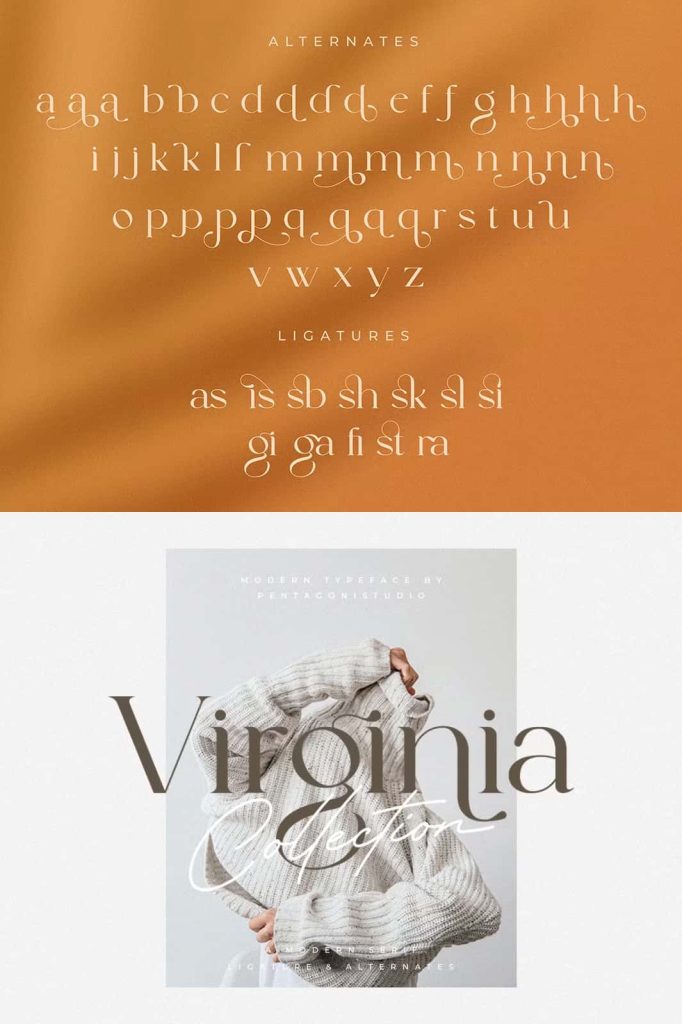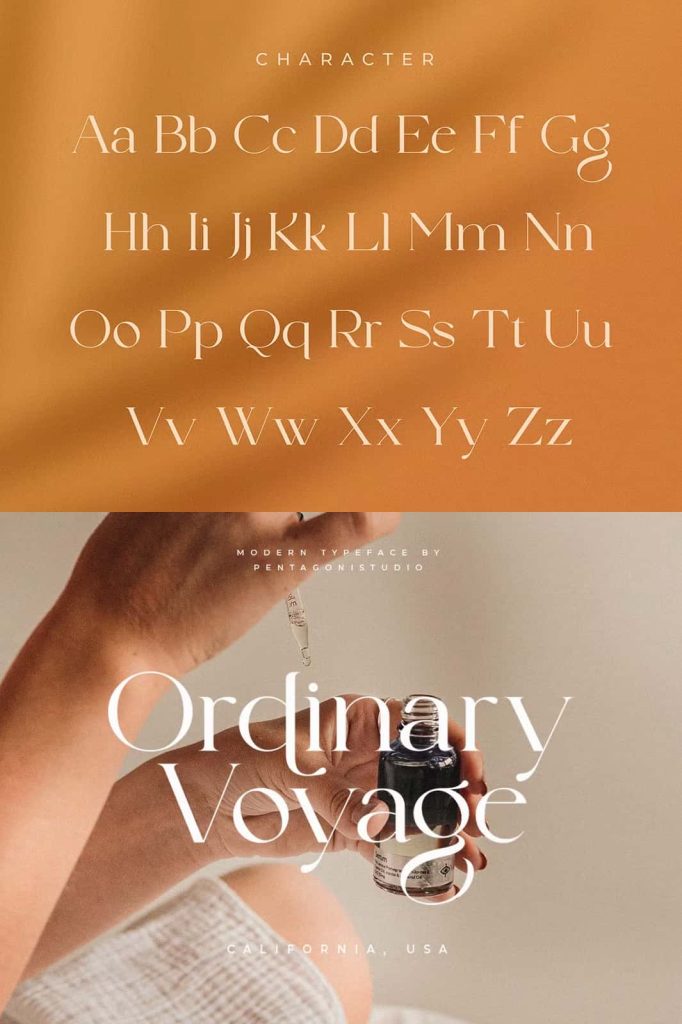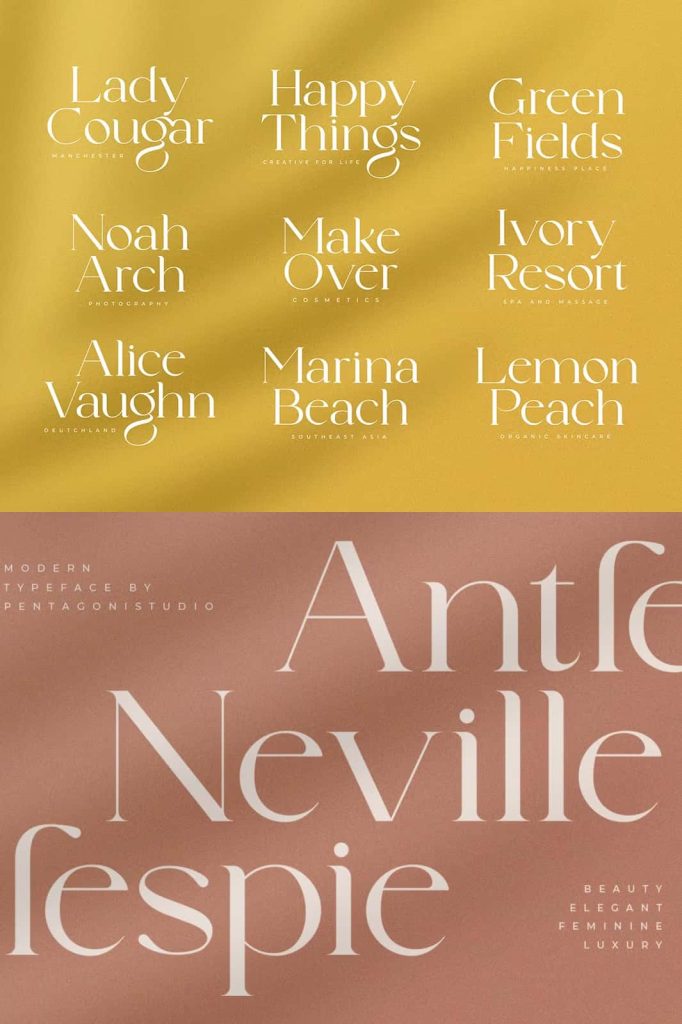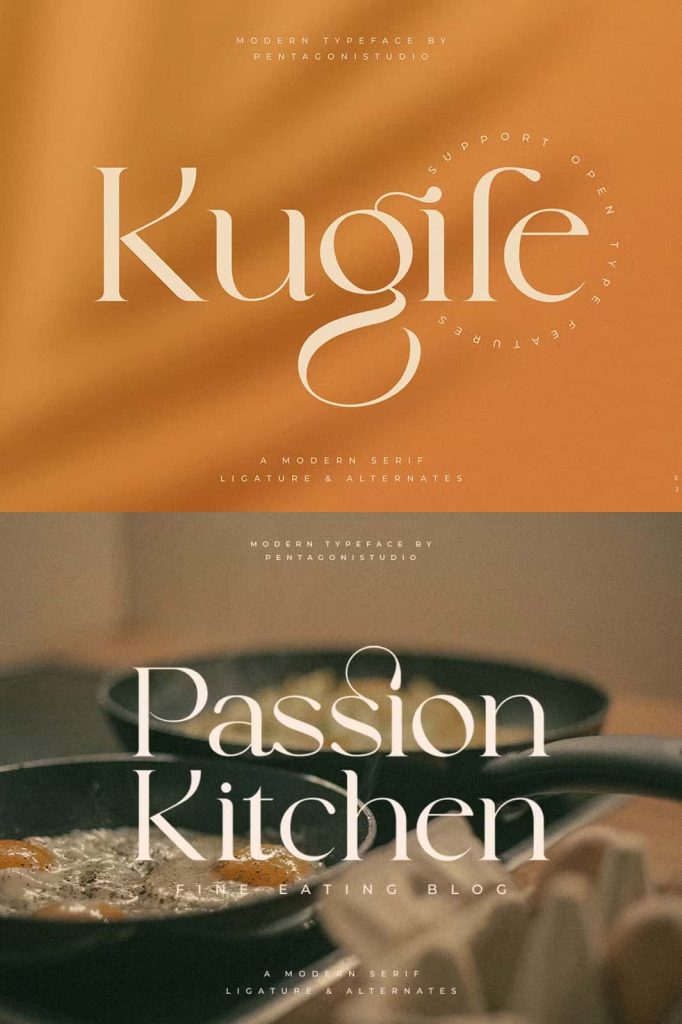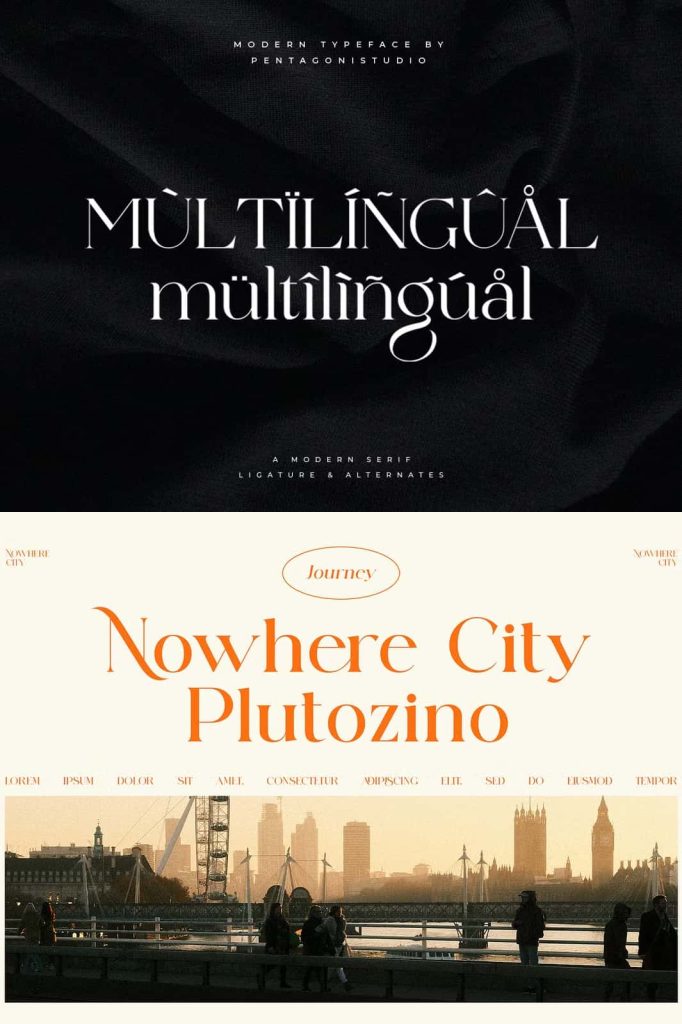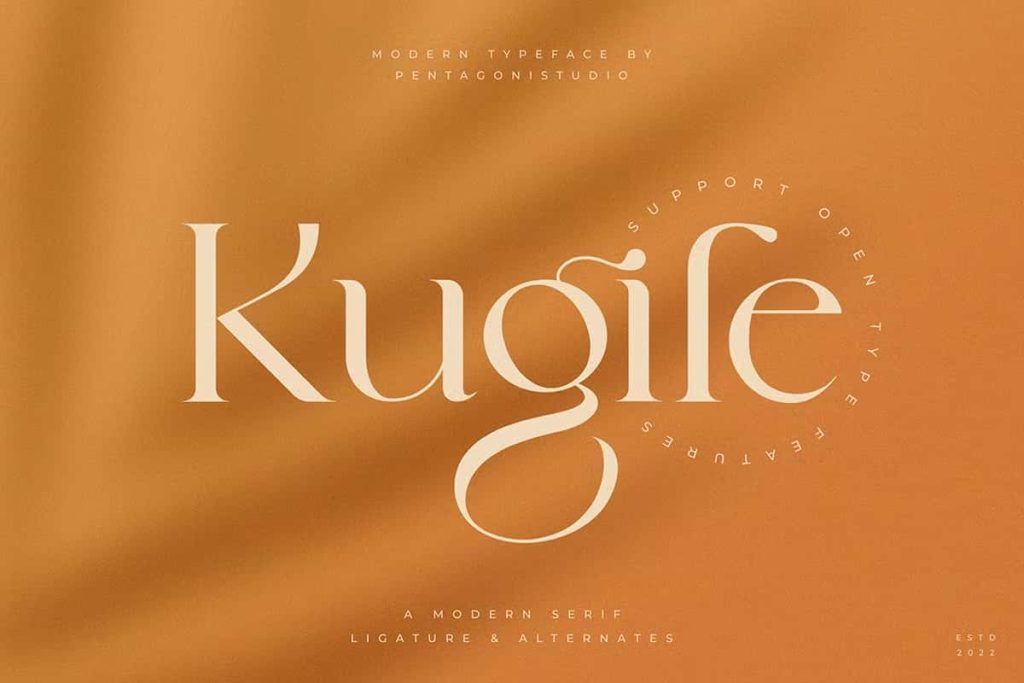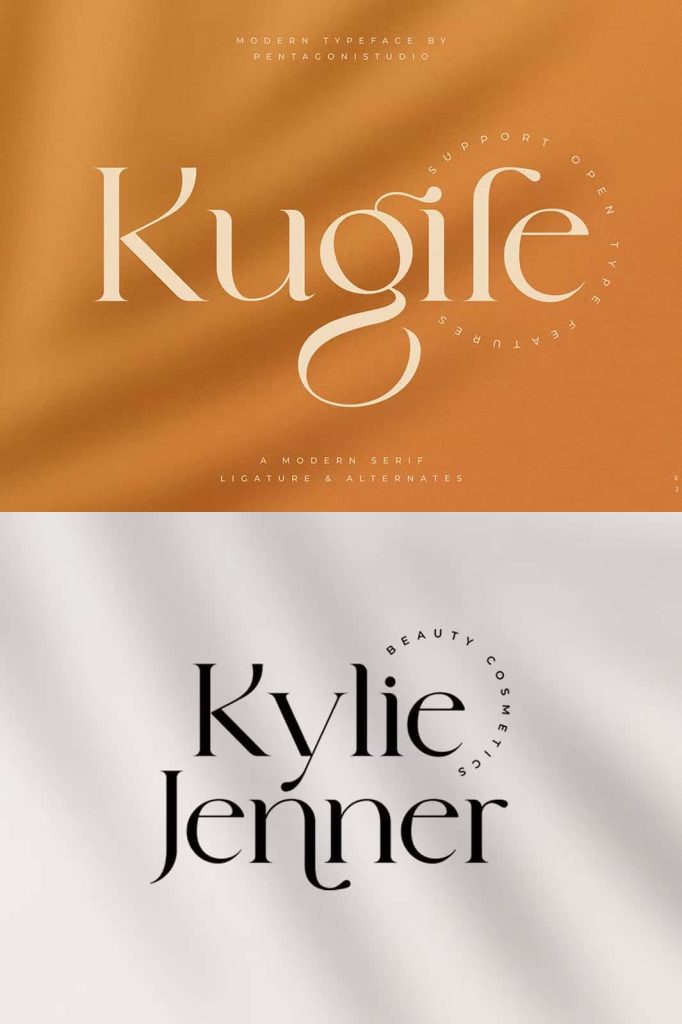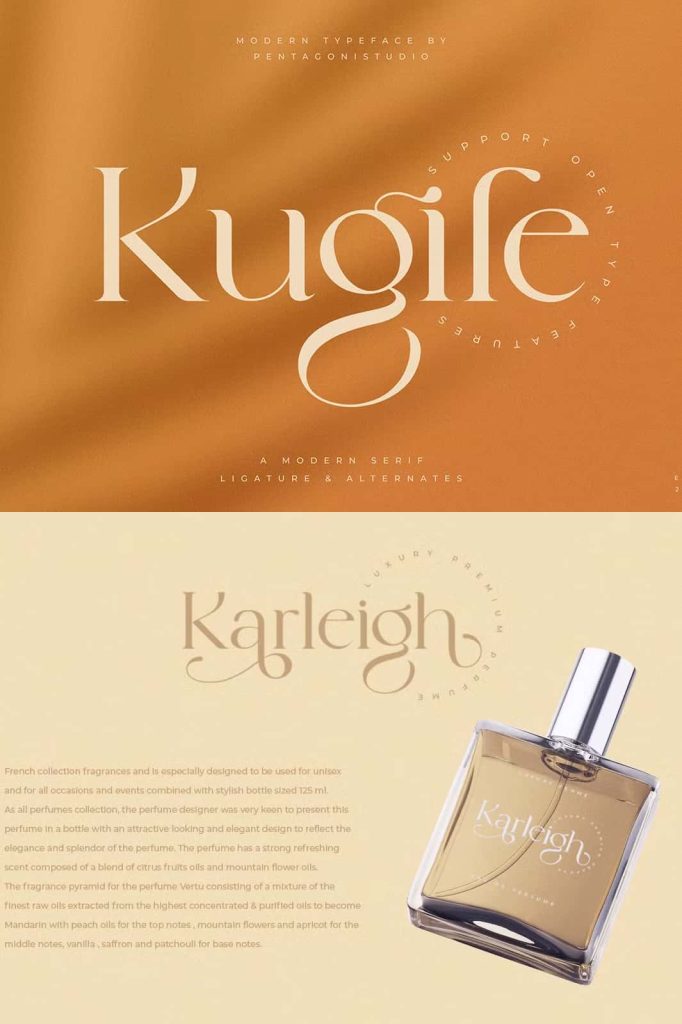
Kugile Classy Serif Font
Kugile is a classy serif font inspired by luxury, elegance, and refined visual character. Designed for creative projects that demand sophistication without sacrificing personality, Kugile brings a polished and timeless quality to typography. Its elegant serif construction creates a graceful appearance that can instantly elevate logos, headlines, packaging, editorial layouts, invitations, fashion graphics, and premium branding.
With its sophisticated character, Kugile provides designers with a versatile typographic foundation for creating memorable visual identities. The font can communicate luxury through a clean and refined composition, or it can create a more expressive appearance when paired with photography, decorative elements, textures, and carefully selected colors. Its classic influence keeps the design timeless, while its contemporary presentation allows it to work comfortably in modern creative environments.
A Refined Serif Inspired by Luxury
Kugile draws inspiration from the visual language of luxury design. Elegant serif typography has long played an important role in fashion, beauty, editorial publishing, premium packaging, and sophisticated branding. Kugile captures this tradition while providing a versatile style for today’s designers.
The serif details give each letter a polished appearance and help create a sense of refinement. When used in large headlines or brand names, the typeface can become a strong visual statement. Its elegant structure also works beautifully in more restrained layouts where typography takes center stage.
Classy Character for Modern Design
Kugile balances classic sophistication with a contemporary design sensibility. Rather than creating an overly traditional appearance, the typeface gives elegant typography a modern context. This makes it suitable for brands and creatives that want to communicate quality, confidence, and timeless style.
Use Kugile in minimalist layouts to create a clean luxury aesthetic. Alternatively, combine it with rich textures, editorial photography, fine lines, subtle ornaments, or sophisticated compositions to create a more elaborate visual identity.
Make Typography the Focal Point
Kugile has enough character to work as the primary visual element in a design. Use it for large headlines, brand names, campaign titles, product names, or short statements. Allow generous spacing around the lettering so the refined serif details can remain visible and create an elegant sense of balance.
A minimalist approach often works particularly well with classy serif typography. Instead of adding numerous decorative elements, let the letterforms communicate the personality of the project. This approach can produce a premium appearance while keeping the overall composition clean.
Perfect for Luxury Branding
Kugile can help businesses establish a sophisticated and memorable brand identity. Its classy serif character works especially well for fashion labels, beauty brands, jewelry companies, lifestyle businesses, creative studios, photography services, boutique retailers, and premium products.
Use the font for logos, wordmarks, brand names, slogans, packaging, websites, social media graphics, advertisements, and printed materials. A carefully designed Kugile wordmark can create a strong first impression and give a brand a sense of refinement.
Create Elegant Logos and Wordmarks
A luxury logo often depends on typography that communicates quality without relying on excessive decoration. Kugile provides a refined foundation for creating sophisticated wordmarks and brand names.
Use the font in uppercase or carefully arranged title-case compositions depending on the desired personality. Experiment with spacing, scale, and alignment to create a logo that feels balanced and intentional. Pair the wordmark with a simple symbol or monogram when the project requires additional branding elements.
Fashion and Beauty Applications
Kugile naturally complements fashion and beauty projects. Its refined serif character can communicate elegance, confidence, and premium quality across clothing labels, beauty campaigns, cosmetic packaging, perfume branding, editorial photography, and promotional materials.
Use Kugile for fashion collection names, magazine-style headlines, product names, campaign titles, and brand identities. Combine the typography with sophisticated photography and minimalist layouts to create a high-end visual direction.
Elegant Packaging Design
Packaging designers can use Kugile to make products feel more refined and premium. The typeface works well for product names, collection titles, labels, packaging headlines, stickers, boxes, bottles, and promotional materials.
Its elegant appearance can complement cosmetics, fragrances, skincare products, jewelry, fashion accessories, candles, specialty products, and boutique goods. Use large Kugile lettering for the main product name and a clean supporting typeface for descriptions and practical information.
Use Kugile to create luxury logos, fashion branding, elegant packaging, editorial headlines, wedding invitations, social media graphics, and premium product designs. Pair it with minimalist layouts for a contemporary look or combine it with decorative details for a richer classic aesthetic.
If you want a serif typeface that brings timeless elegance and modern sophistication to your creative work, Kugile offers a versatile and stylish foundation for your next project.